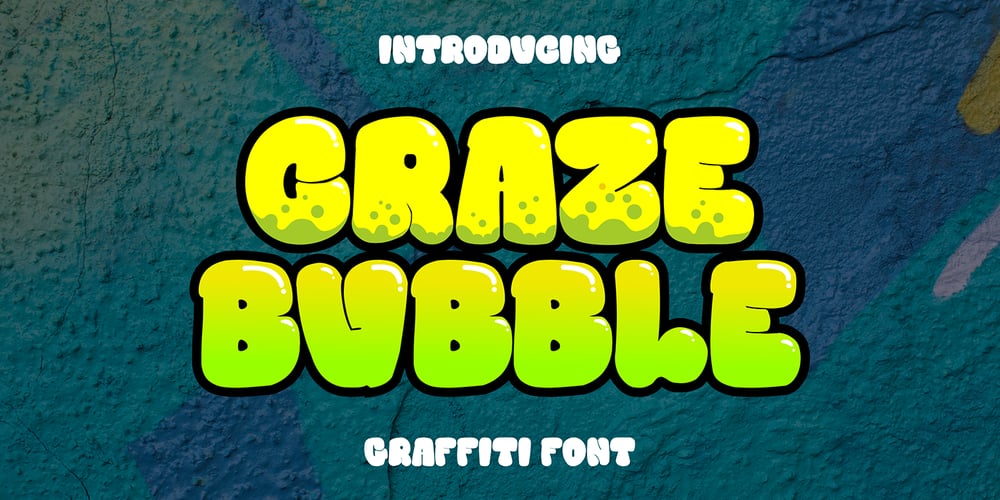
Craze Bubble Font Family was designed by Sipanji and published by Sipanji21. Craze Bubble contains 1 styles and family package options. “Craze Bubble ” is an urban graffiti font characterized by Bubble edges and a bold look. Ideal for music posters, apparel designs, shirts, and streetwear, this font brings a touch of edginess to your projects. The unique style of “Craze Bubble” makes it the perfect choice any urban graffiti themes. Whether you want to create a strong and powerful statement or simply add a touch of attitude to your designs “Craze Bubble” is the font for you.